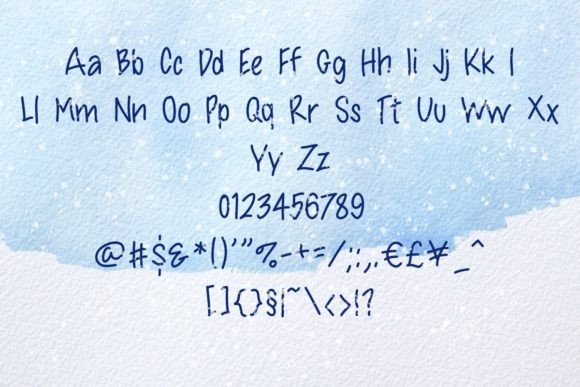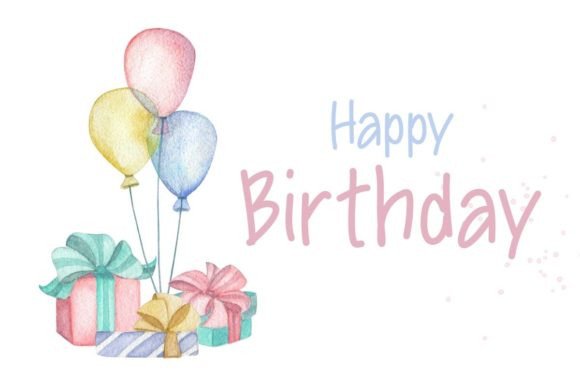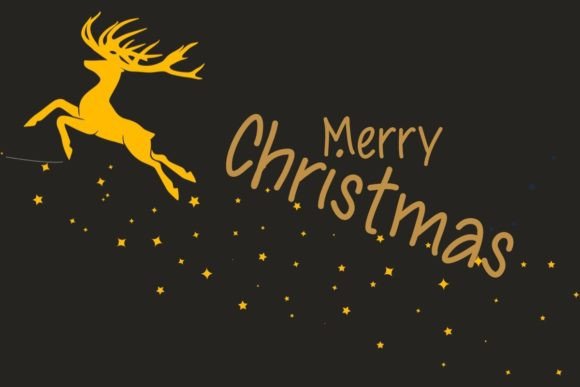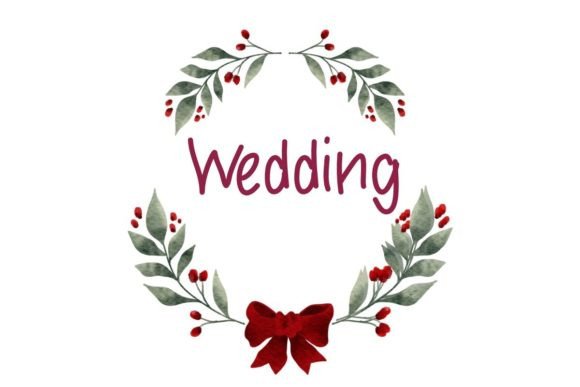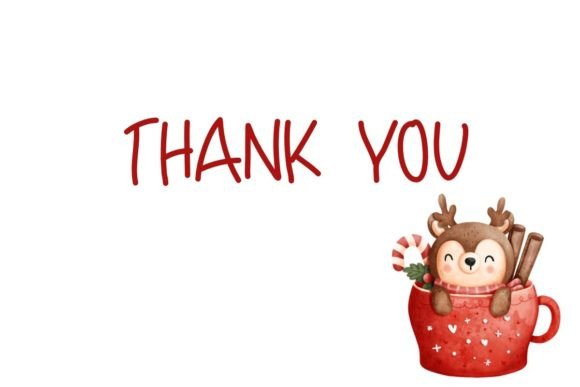
Introducing December Font: The Perfect Handwritten Style for Your Creative Projects
Are you on the lookout for a unique and versatile font to elevate your creative projects? Look no further than December Font, a beautiful handwritten font that is perfect for a wide range of applications. From logos and branding to wedding invitations, business cards, and social media graphics, December Font is the ideal choice for designers and crafters looking to add a personal touch to their work.
What Makes December Font So Special?
December Font is a carefully crafted handwritten font that exudes warmth and personality. Its unique lettering style is perfect for creating eye-catching designs that stand out from the crowd. Whether you’re working on a children’s design, a t-shirt, mug, or poster, December Font is sure to bring your creative ideas to life.
Endless Possibilities with December Font
One of the best things about December Font is its versatility. This font can be used for a wide range of projects, including:
- Logos and branding: Create a unique and memorable logo for your business or brand with December Font.
- Wedding invitations: Add a touch of elegance and sophistication to your wedding invitations with this beautiful handwritten font.
- Business cards: Stand out from the competition with professionally designed business cards featuring December Font.
- Greeting cards: Create personalized and heartfelt greeting cards for any occasion.
- Posters: Design eye-catching posters for events, promotions, or advertising campaigns.
- Magazines: Use December Font to add a personal touch to your magazine layouts and designs.
- Social media: Elevate your social media graphics and posts with this beautiful handwritten font.
- Planner prints: Create custom planner prints and organizers with December Font.
- Websites: Use December Font to add a unique and personal touch to your website design.
Why December Font is Perfect for Children’s Designs
December Font is especially useful for children’s designs, including:
- T-shirts: Design fun and colorful t-shirts for kids with December Font.
- Mugs: Create personalized mugs for kids with their names or favorite quotes.
- Posters: Design eye-catching posters for kids’ events, parties, or educational materials.
December Font’s playful and whimsical style is perfect for creating engaging and fun designs for kids.
Tips for Using December Font Effectively
To get the most out of December Font, here are some tips to keep in mind:
- Use it sparingly: December Font is a statement font, so use it sparingly to add emphasis to your designs.
- Mix and match: Combine December Font with other fonts to create a unique and interesting design.
- Experiment with colors: December Font looks great in a variety of colors, so don’t be afraid to experiment and find the perfect hue for your design.
December Font is a versatile and beautiful handwritten font that is perfect for a wide range of creative projects. Its unique lettering style and playful personality make it an ideal choice for designers and crafters looking to add a personal touch to their work. Whether you’re working on a logo, wedding invitation, or children’s design, December Font is sure to bring your creative ideas to life.